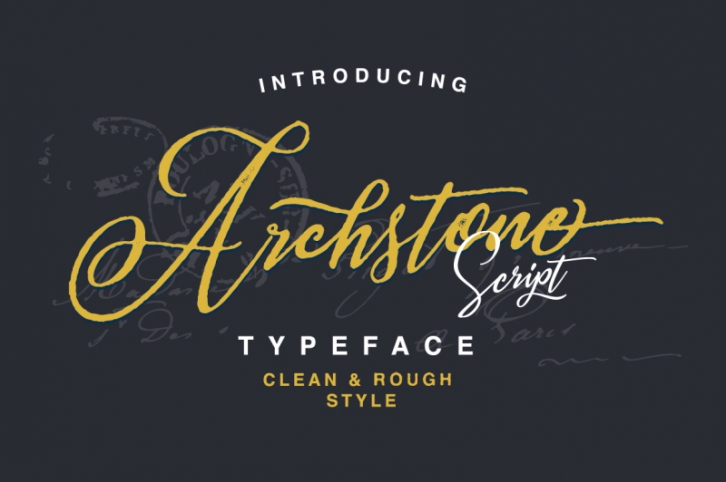
Archstone Script is a beautiful handscript Calligraphy Style give the natural looks. Alternate character contain with Alternate and more. You can access all those alternate characters by using OpenType savvy programs such as Adobe Illustrator and Adobe InDesign.
Great for Apparel Brand, Logos, printed quotes, invitations, image overlays, greeting cards, product packaging, text headers, any greeting cards, book cover, Painting design style, or any design that needs natural and personal touch & whatever else your imagination holds! Mix and match the alternate characters to add an attractive message to your design.